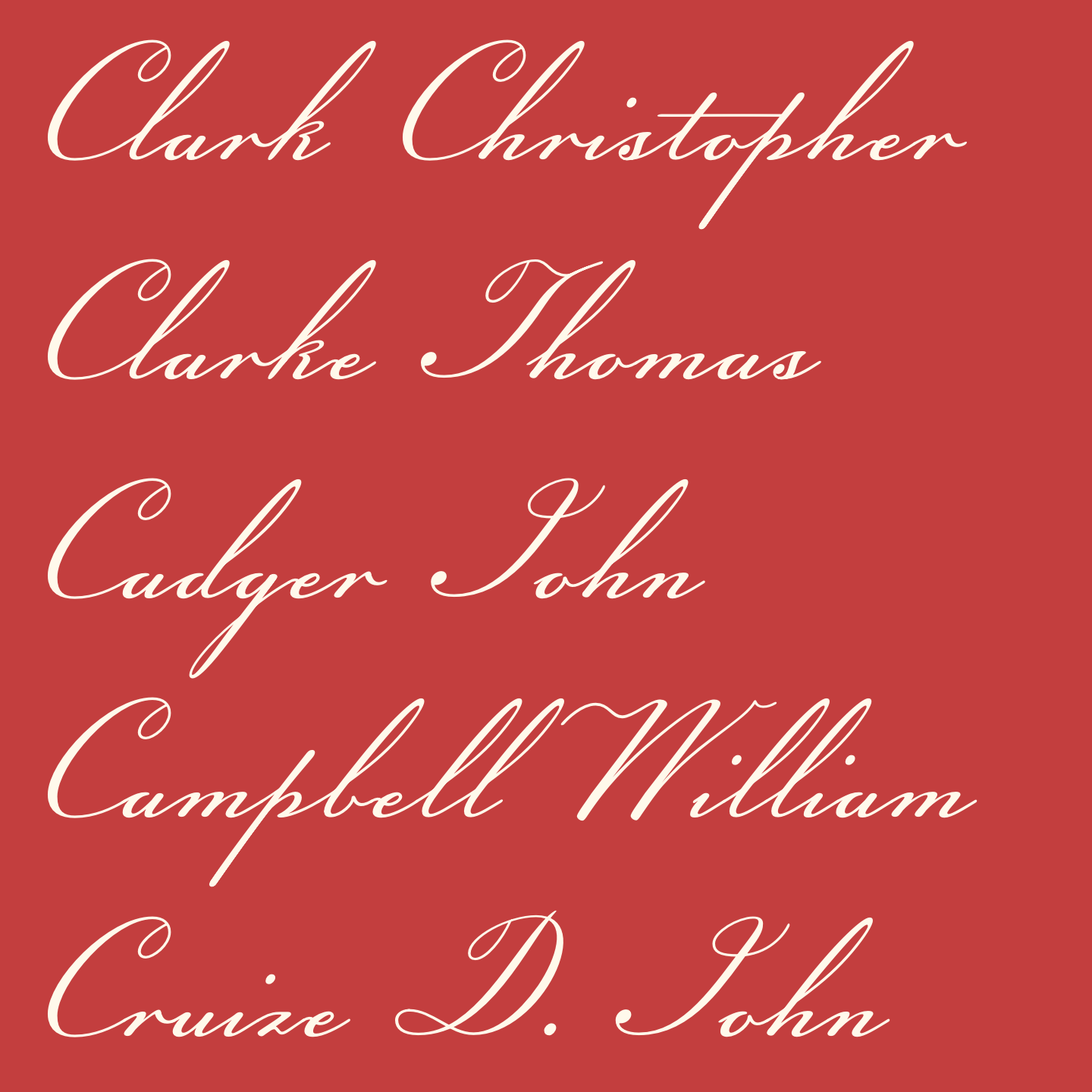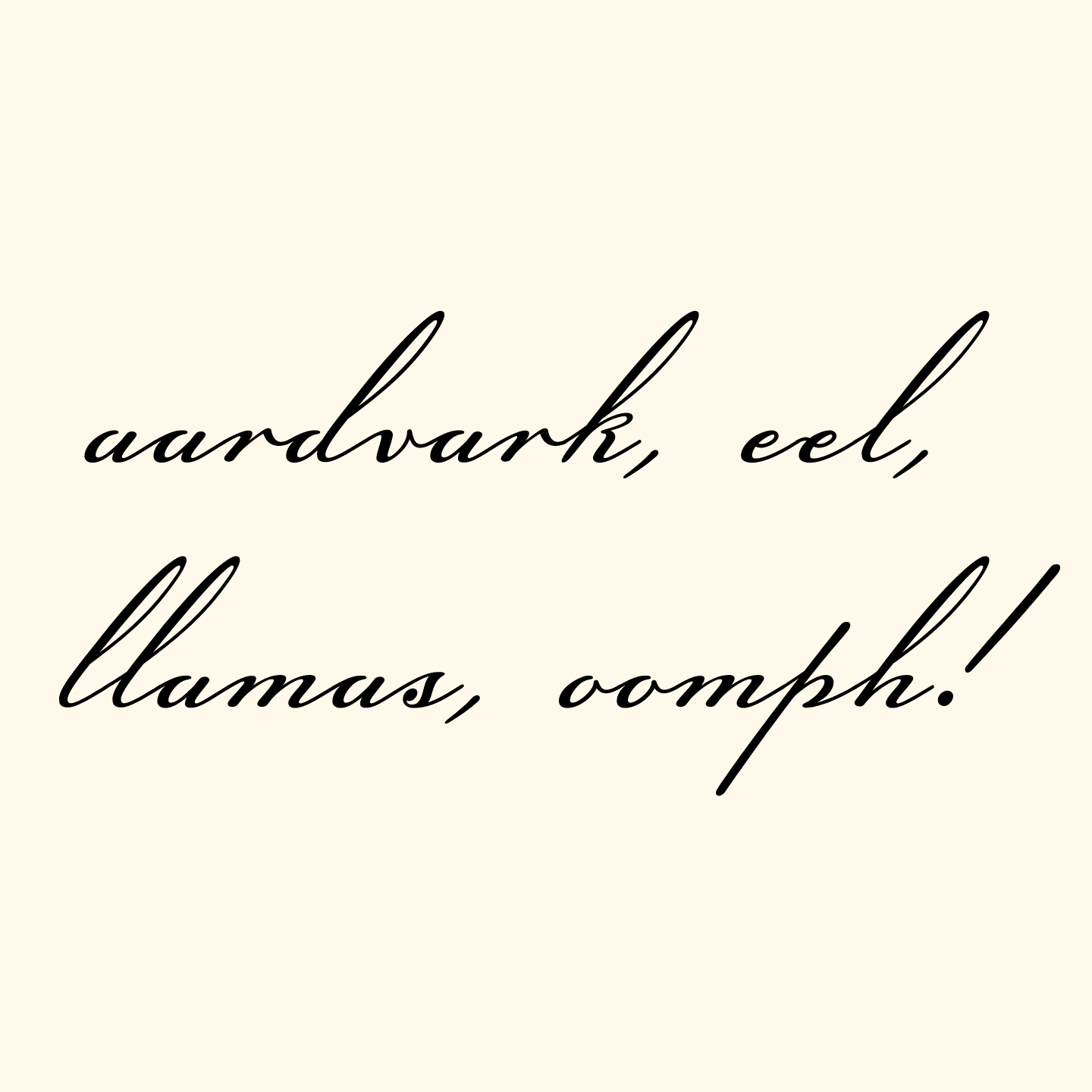
Midshipman is sampled from the handwriting of John M. Funck, Master’s Mate on the U.S.S. Constitution. He was in charge of keeping the frigate’s Watch and Quarter Bill from 1808 to 1810; a detailed list of all crew and their stations in sailing and during combat. This document, made avaible by The Internet Archive, was the primary source for this typeface.
Midshipman is a connected script that also includes initial forms for lowercase words. It also includes some archaic features which come directly from the source material, including an initial ‘long s’ and the lack of distinction between Capitals ‘I’ and ‘J.’